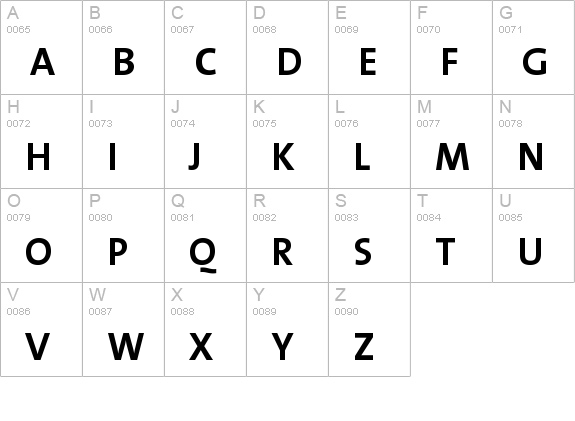
Introducing TMixBold, a captivating and modern font that effortlessly combines elegance with a touch of boldness. This exquisite typeface is perfect for those seeking a unique and eye-catching design, whether it be for branding, advertising, or creative projects. TMixBold effortlessly captures attention with its bold and confident letterforms, making it the ideal choice for headlines and titles that demand to be noticed. Its clean lines and balanced proportions bring a sense of sophistication and professionalism to any design, while still maintaining a contemporary and dynamic feel. One of the most remarkable features of TMixBold is its versatility. This font is incredibly adaptable, allowing designers to easily experiment with different weights, sizes, and styles to achieve their desired look. Whether it's used for print materials, digital platforms, or even signage, TMixBold ensures a seamless and visually appealing result every time. What sets TMixBold apart from other fonts is not only its striking aesthetics but also its accessibility. It is freely available to download at FontsMarket.com, allowing designers and creatives to explore its potential without any barriers. This means that anyone can harness the power of TMixBold and use it to elevate their projects, regardless of budget or restrictions. So, if you're looking to make a bold statement with your design, TMixBold is the font for you. Its combination of elegance, versatility, and accessibility makes it an invaluable tool for any creative endeavor. Download TMixBold for free at FontsMarket.com and unlock a world of possibilities for your next project.